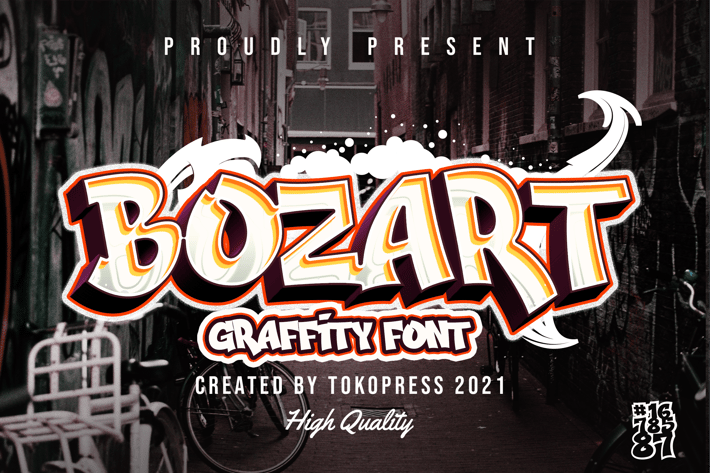
BOZART - Graffiti font
BOZART - Graffiti Font
BOZART is a bold graffiti lettering font with street-art flair, layered depth, and dynamic flow—perfect for making your designs shout with attitude. Built with high-contrast strokes, a dramatic shadow structure, and chunky terminals, this font delivers a punchy, expressive vibe ideal for urban and streetwear themes. It captures a gritty, energetic tone with visually rich forms, making it a stand-out choice for branding aimed at music events, street fashion, or skate culture.
Whether you’re designing an album cover, promoting a hip-hop event, or launching edgy apparel, BOZART brings the raw authenticity of the street straight to your layout. Its energetic, rough-yet-readable design instantly draws the eye, making it ideal for posters, merch, packaging, stickers, or youth-driven advertising. Perfect for any creator aiming to capture rebellious energy, cultural edge, and vibrant style in one powerful font.
- Street-style aesthetic: Captures the rebellious spirit of graffiti culture
- Bold legibility: Highly readable even in complex layouts
- Layered look: Shadow and depth effects built into the structure
- Emotive tone: Great for urban fashion, sports, or underground music scenes
- Creative versatility: Works well on everything from posters to digital artboards